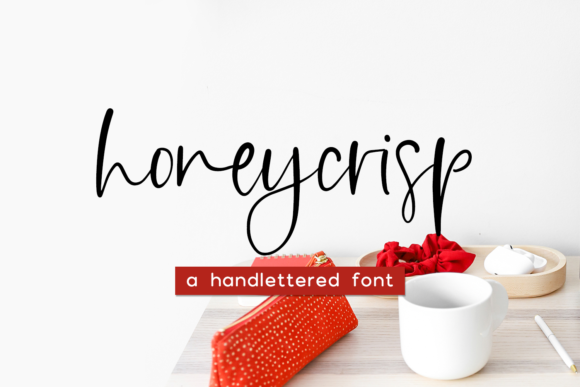
Introducing Honeycrisp Font, the captivating script font that's sure to make your designs burst with charm and personality. Inspired by the sweet and crisp taste of Honeycrisp apples, this font exudes a playful and delectable vibe that's perfect for adding a touch of whimsy to your creative projects.
With its natural and unique style, Honeycrisp seamlessly adapts to a wide range of design concepts. Whether you're crafting invitations for a special occasion, creating logos for playful brands, or designing websites that cater to young audiences, Honeycrisp will effortlessly elevate your creations. The only limit is your imagination!
Designed with versatility in mind, Honeycrisp comes fully PUA encoded, granting you effortless access to all of its glyphs and swashes. This means you can unleash your creativity and explore endless possibilities, crafting designs that are both visually stunning and captivating.
Dive into the world of Honeycrisp and let your imagination run wild. Let this delightful font add a sprinkle of sweetness to your designs and leave a lasting impression on your audience. Elevate your projects to new heights of creativity and charm with Honeycrisp Font!